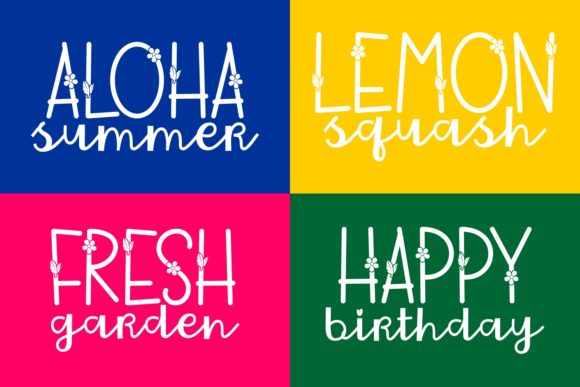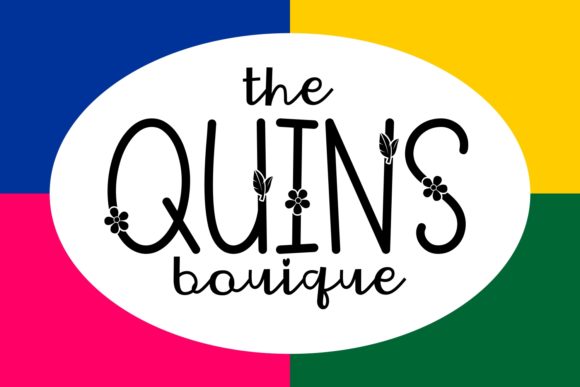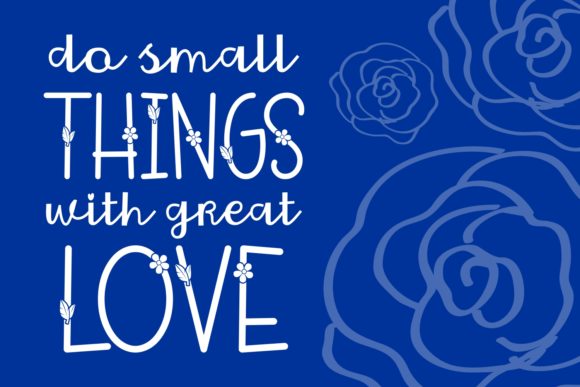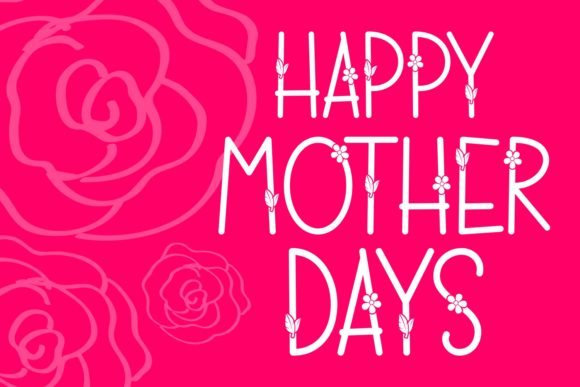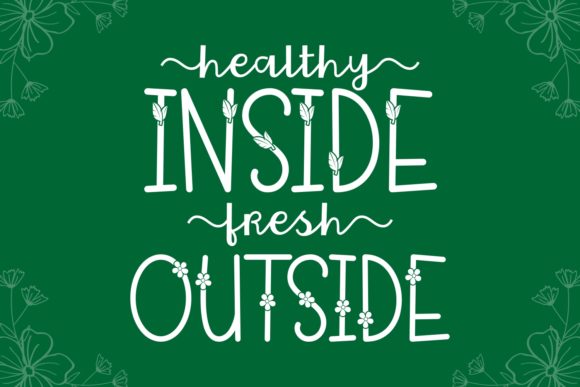
Rainbow Florist Font
About Rainbow Florist Font
Rainbow Florist is a unique and gorgeous handwritten font. It features flower-themed characters that will look amazing in your summer crafting projects. Take your designs to the next level with this beautiful typeface.